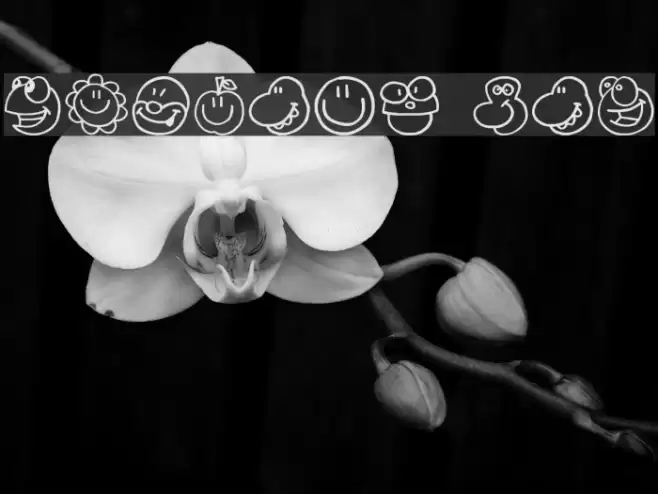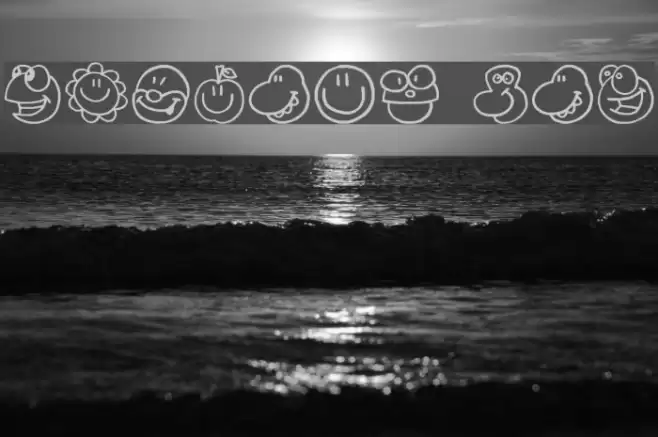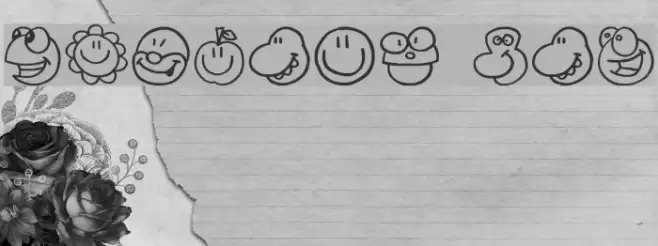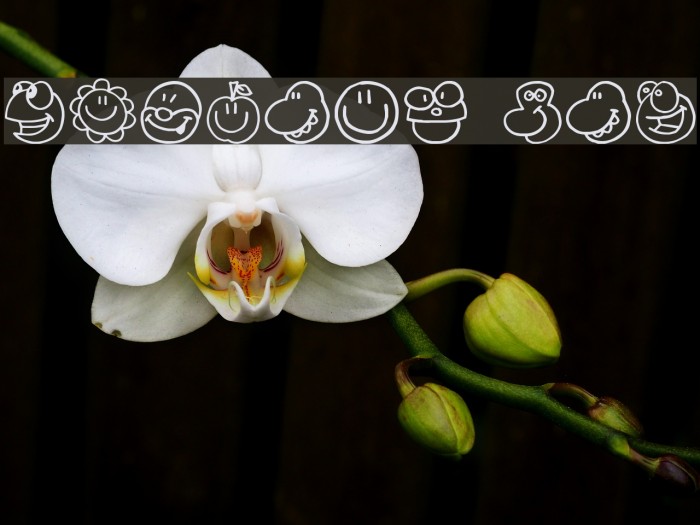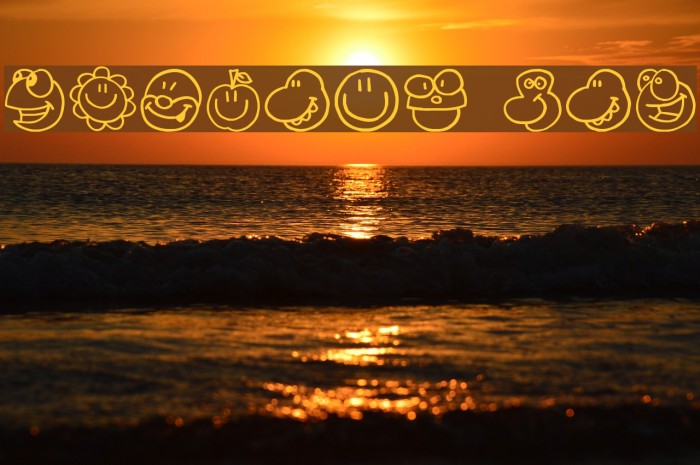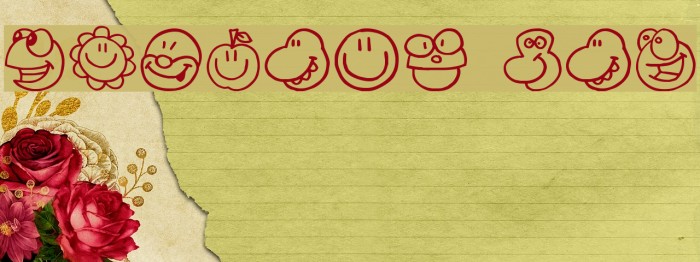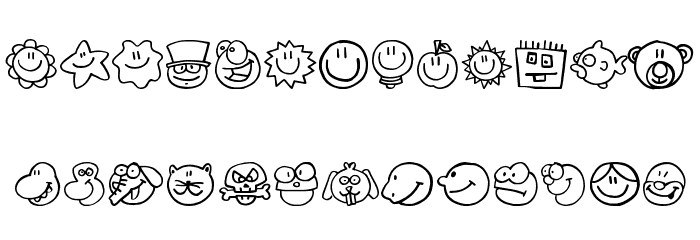
Fazings one Font
Fazings one Description
A playful, hand-drawn display font with irregular, whimsical letterforms and a casual, cartoonish style. The characters have uneven baselines and varying stroke thickness, giving a lively and informal appearance.
Hand-drawn, playful display font with a cartoonish vibe from Images & Symbols fonts.
- Proposed Projects: Children’s books, comic titles, party invitations, playful branding, posters.
- Overall Style: Playful, Whimsical, Cartoonish
- Use Case: Headlines, Logos, Posters, Children’s content